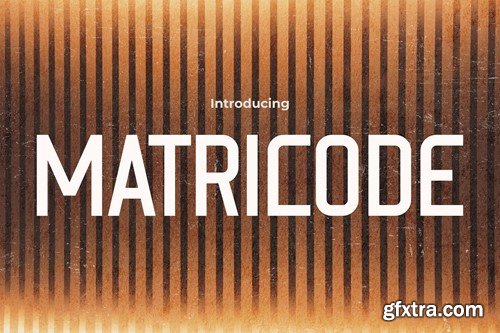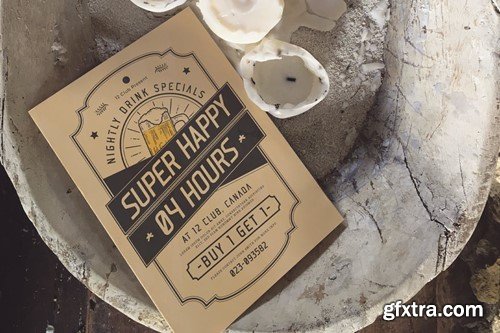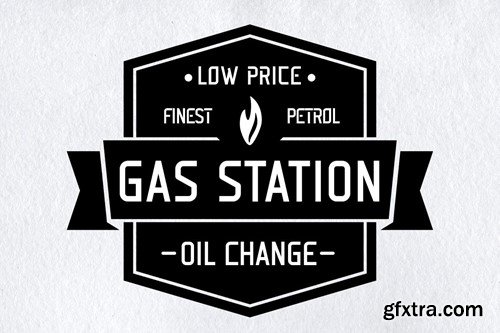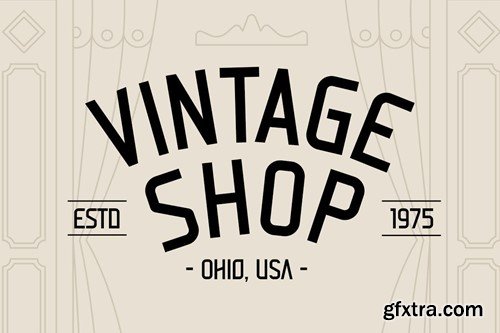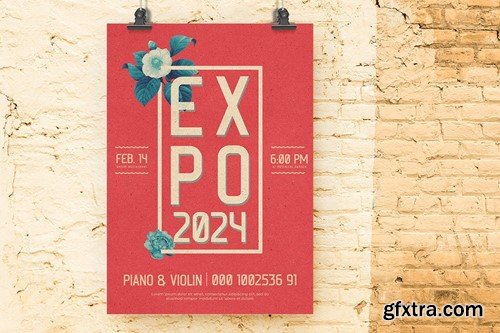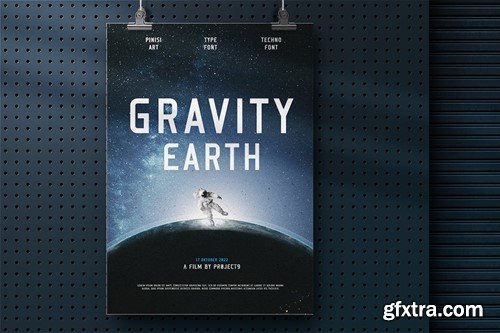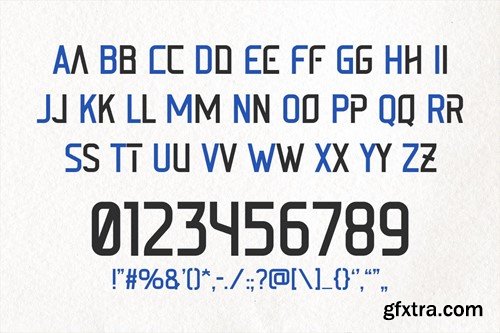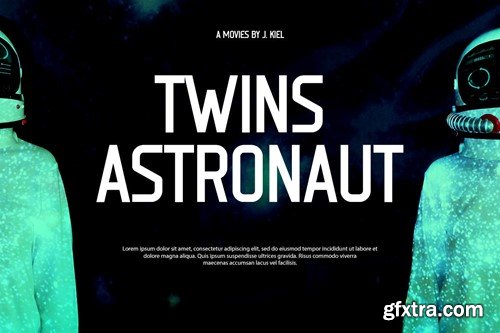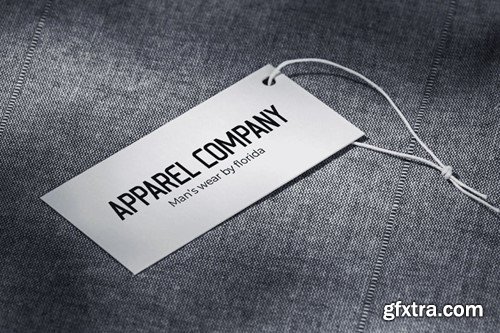
Matricode is a retro-style font that channels the vibrant spirit of the 70s through a modern sans-serif lens, combining vintage charm with contemporary clarity. This unique blend makes it perfect for various applications, from creating standout logos that capture the essence of a bygone era to crafting memorable quotes with a nostalgic flair. Matricode excels in designing invitations that evoke the playful and bold style of the 70s, and its clean sans-serif lines ensure that posters and greetings communicate with both style and readability. Ideal for use in packaging and branding, Matricode adds a touch of retro sophistication that appeals to today’s audience. At the same time, its versatility makes it suitable for covers, events, headlines, and advertising projects that require a distinct and engaging visual presence.